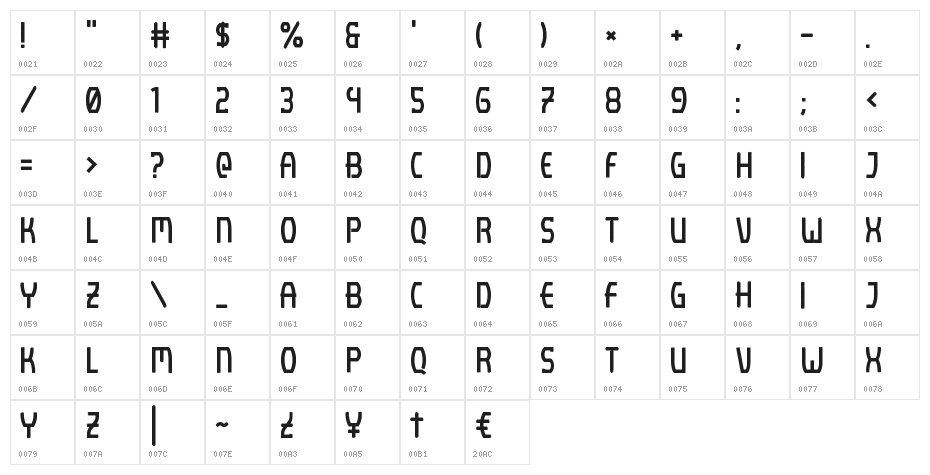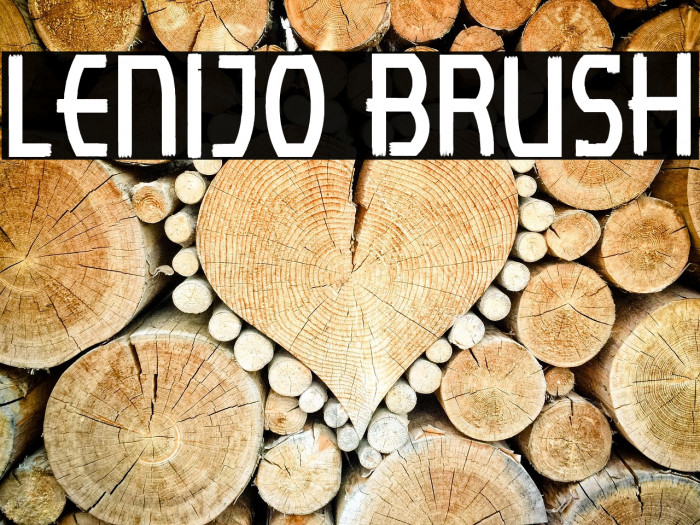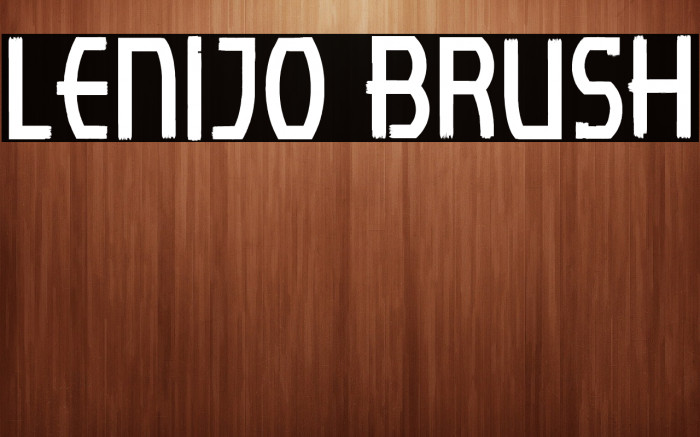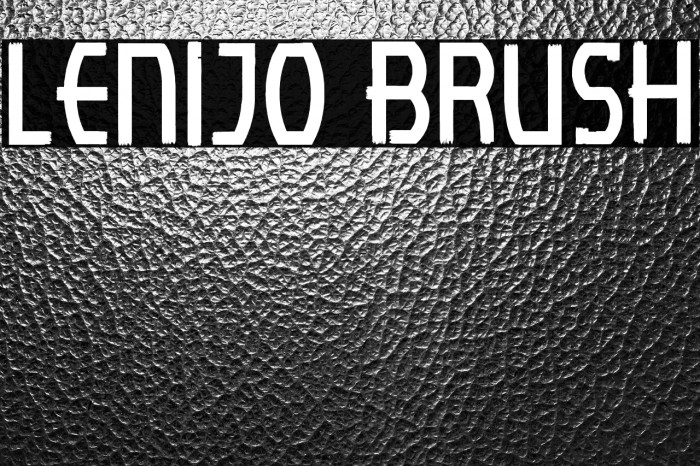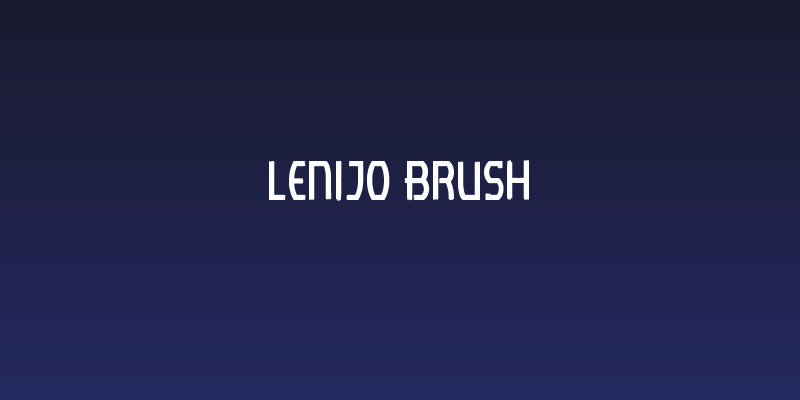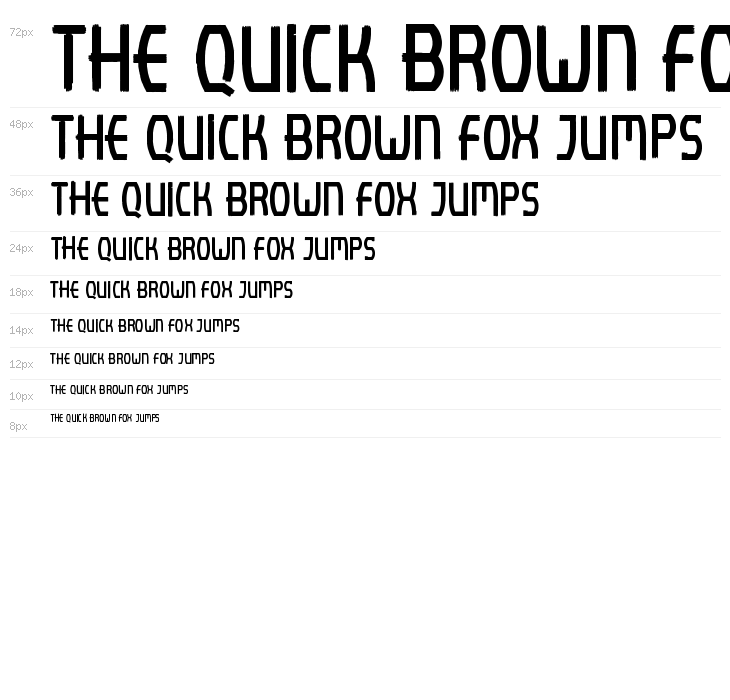
Lenijo Brush Font
Lenijo Brush Description
This font features a bold, brush-like appearance with a modern and artistic flair. The characters are crafted with a consistent stroke width, giving them a uniform look while maintaining a hand-drawn feel. The uppercase letters are prominent and slightly condensed, while the lowercase letters maintain a similar style, ensuring readability. Numbers and special characters follow the same design principles, making them cohesive with the rest of the font. The overall style is expressive, making it suitable for creative and dynamic projects.
| Proposed Projects | Ideal for branding, posters, and creative projects that require a bold and artistic statement. |